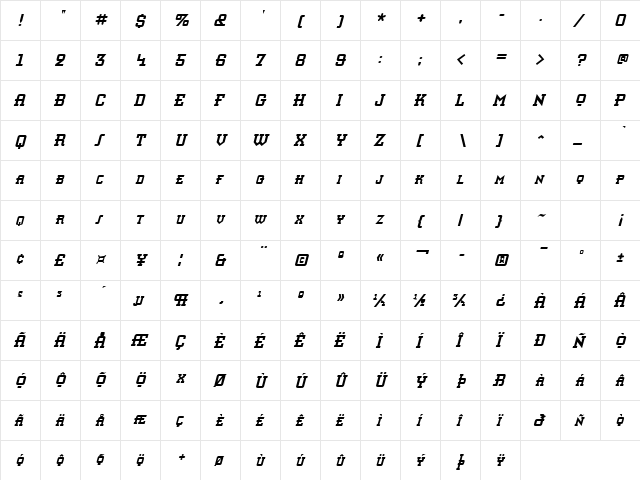
Knomen Italic
Design Context for Knomen Typeface
Knomen offers clean, dependable letterforms without strong stylistic allegiance, making it a practical choice for designers who need flexibility. The slanted form adds forward momentum and visual energy.